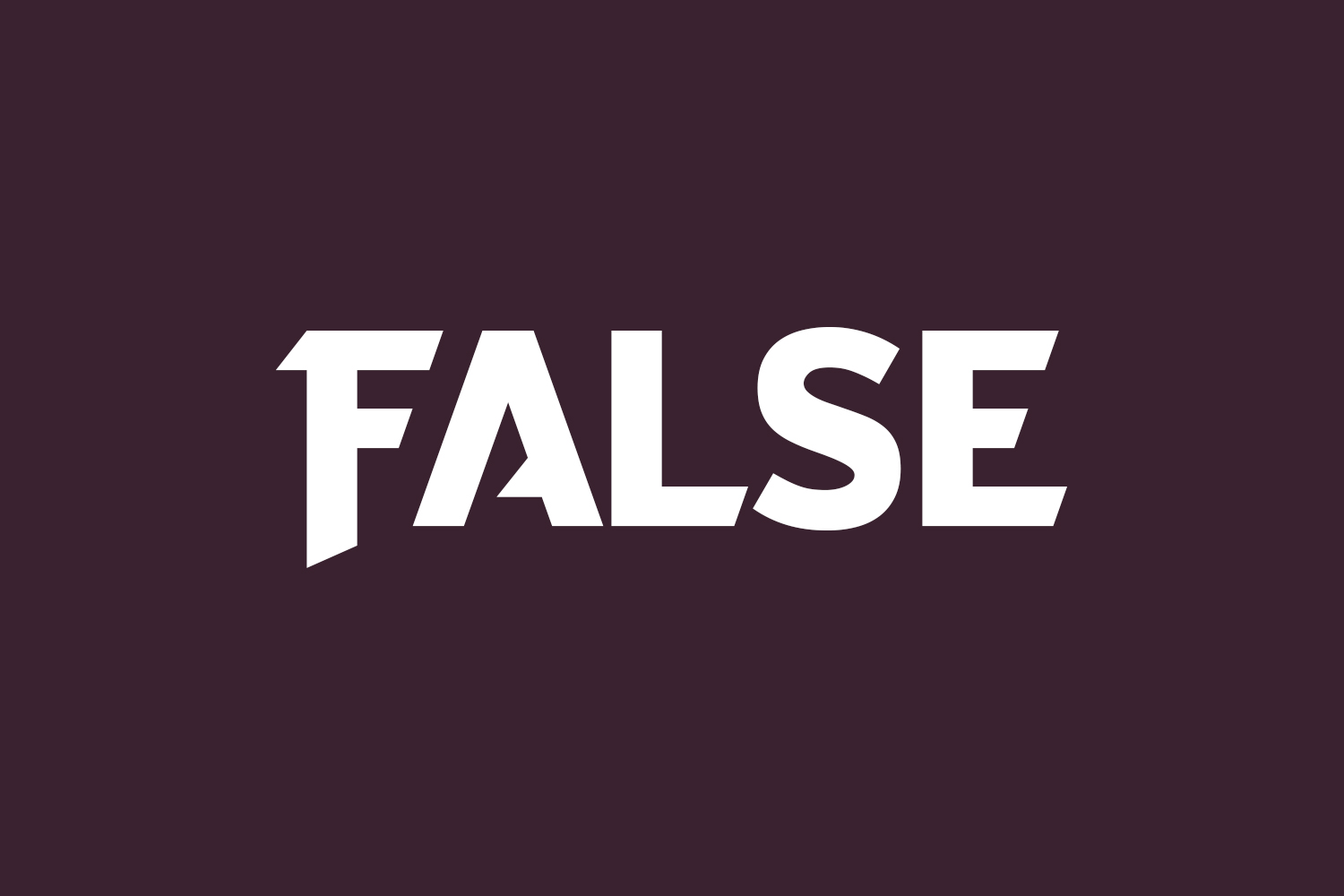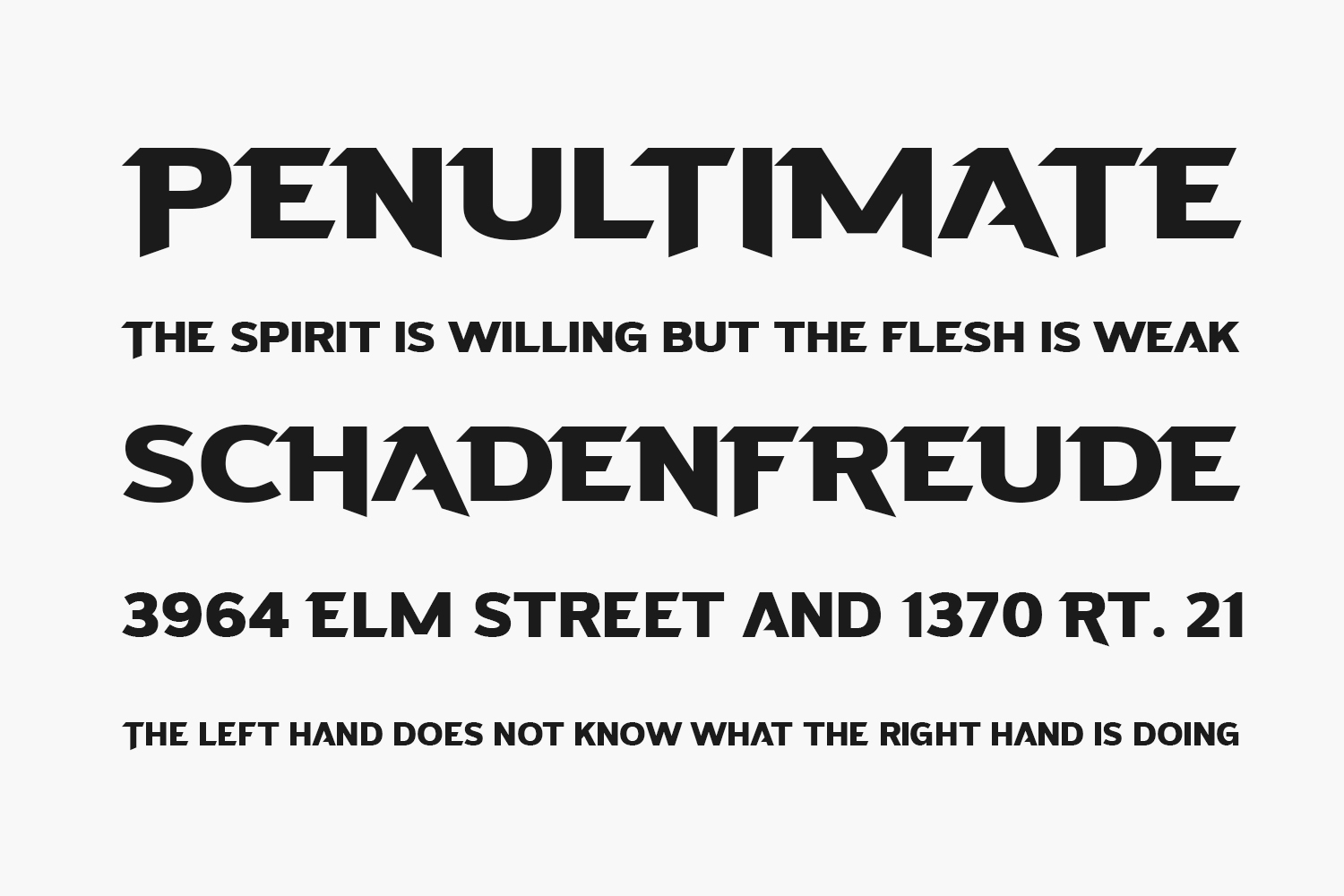
False Free Font is a font that embodies the perfect balance between modernity and classic Gothic elements. It boasts sleek, clean lines and sharp edges that exude sophistication, while the intricate details and ornate flourishes pay homage to the rich history of Gothic typography. This font is both elegant and edgy, making it the perfect choice for designers looking to make a bold statement with their typography. And best of all, it’s false free – meaning you can enjoy all its beauty without having to spend a single penny. False Free Font is free for personal use only. Please purchase the full version for commercial use.